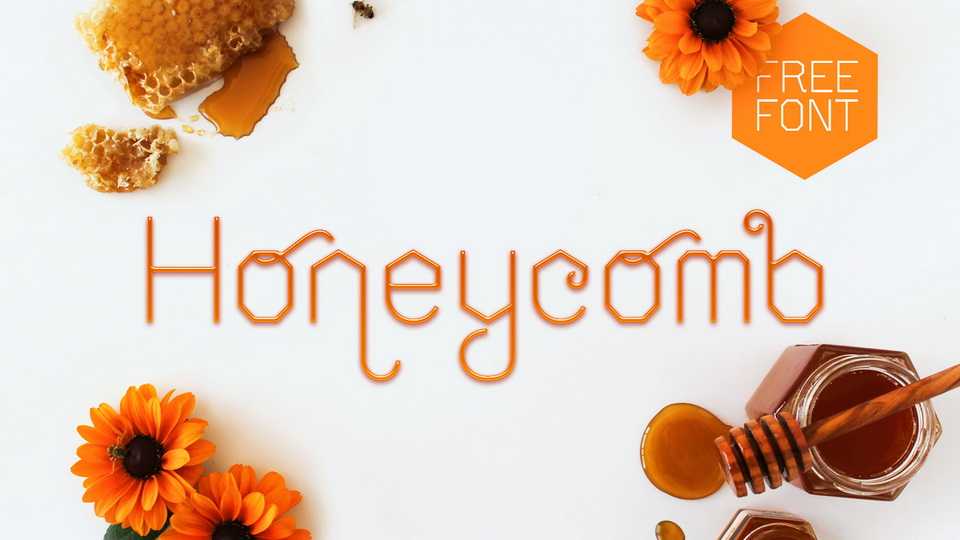
Download Honeycomb typeaface, a decorative font family in Round and Sharp styles with Italics and Swashes, derived from nature’s splendor and based off of organic and geometric wonders of the honeycomb.
Designer: Katrina Sutton